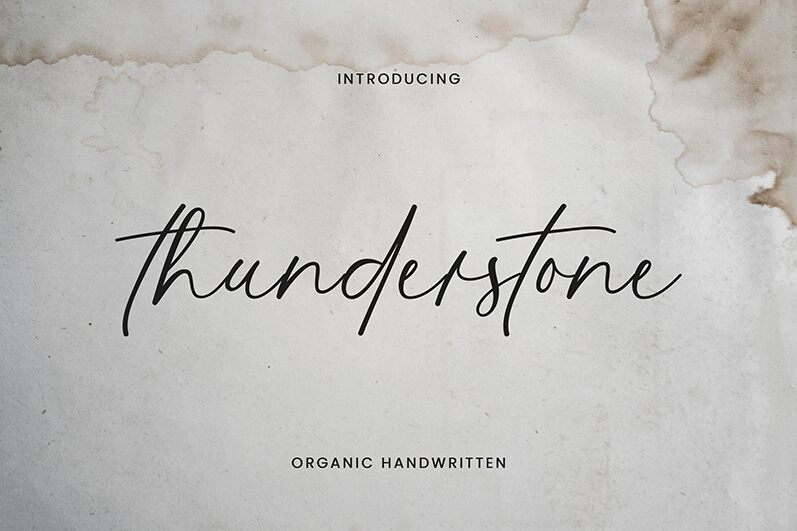
Thunderstone
Thunderstone by UI Creative is a captivating handwritten signature font that exudes a sense of elegance and refinement. The fluid, calligraphic strokes create a remarkably expressive and personalized aesthetic, evocative of the spontaneity and artistry of a handcrafted signature. This font's dynamic flow and unique character imbue designs with a distinctive charm and individuality, making it a standout choice for a wide range of applications.
The versatility of Thunderstone allows it to seamlessly integrate into diverse design contexts, from high-end branding and luxury packaging to editorial layouts and personalized stationery. Its signature-inspired style lends an air of exclusivity and bespoke charm, making it an excellent selection for projects that require a touch of elegance and a personal touch.